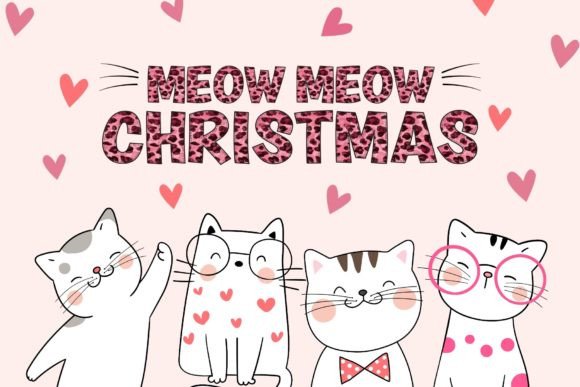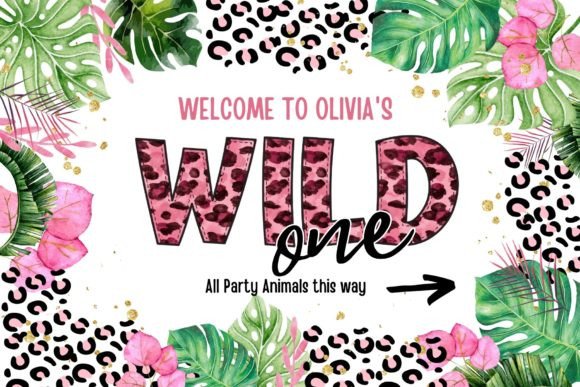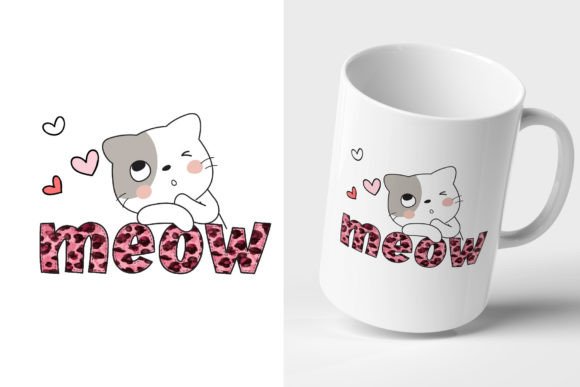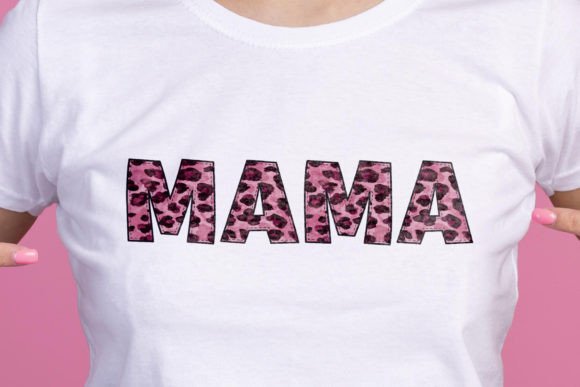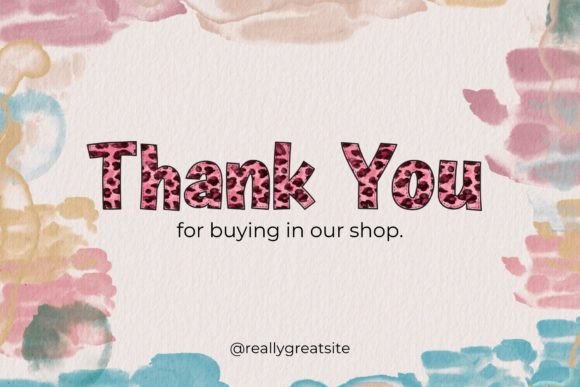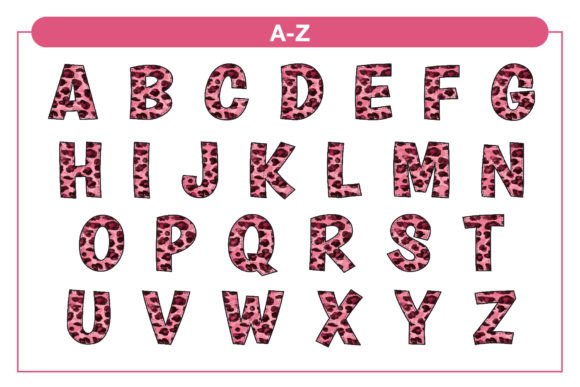
Introduction to Fox Micky Font
Fox Micky is a cool and fun decorative color font.
It will be suitable for designing t-shirts, tote bags, hats, stickers, wedding designs, logos, cards, quotes, and more Fox Micky will make any creative idea stand out.
Key Features of Fox Micky Font
Why Choose Fox Micky Font?